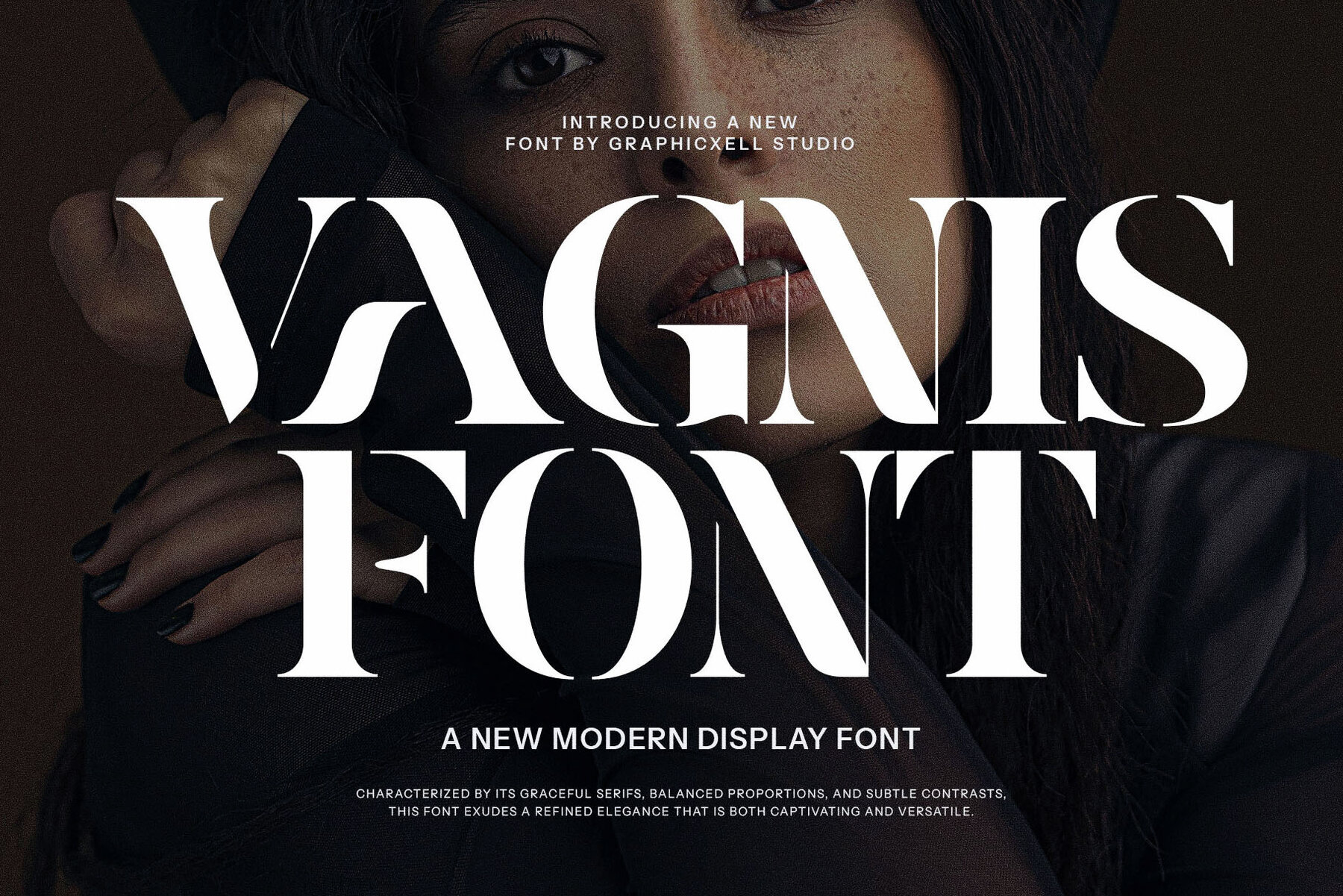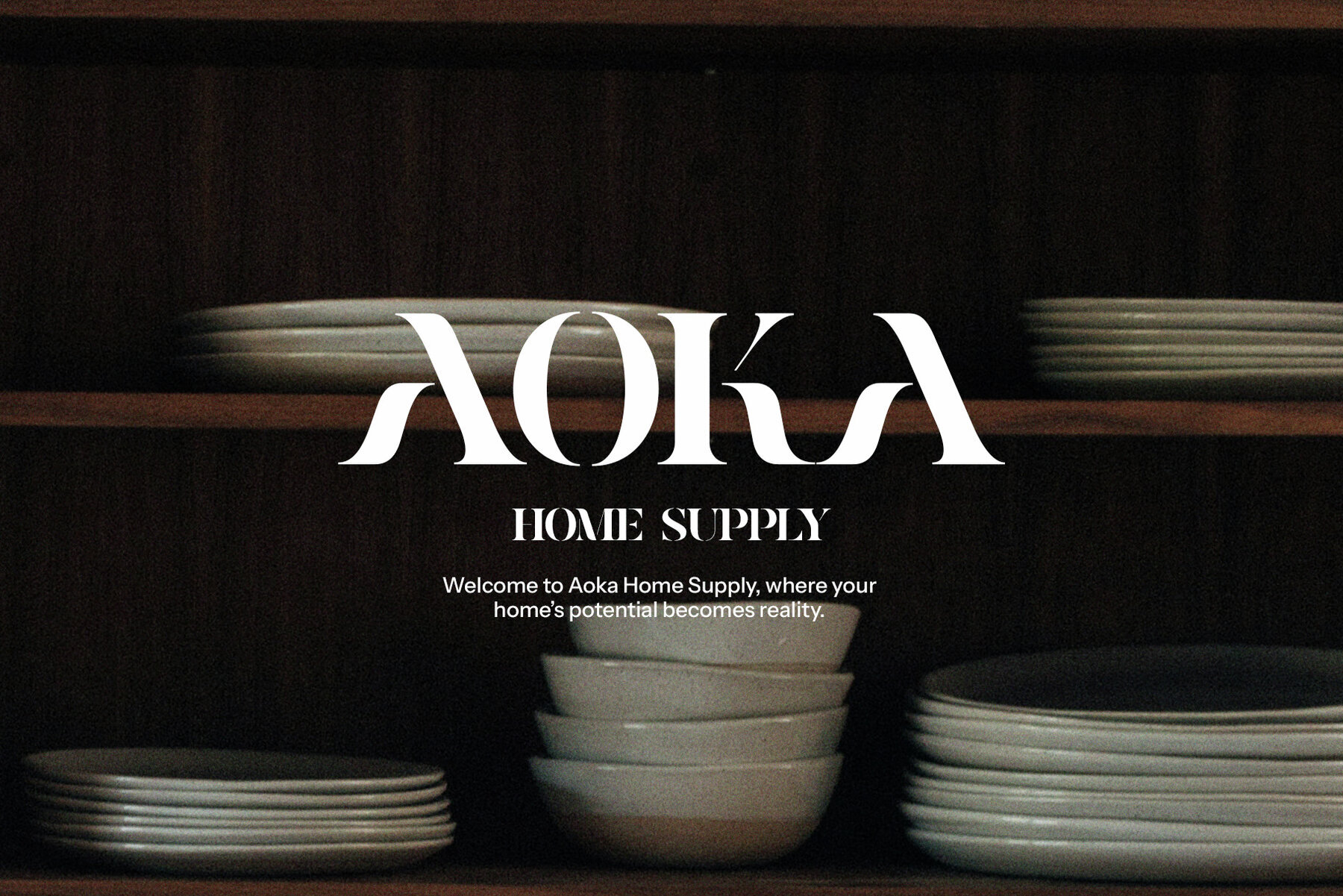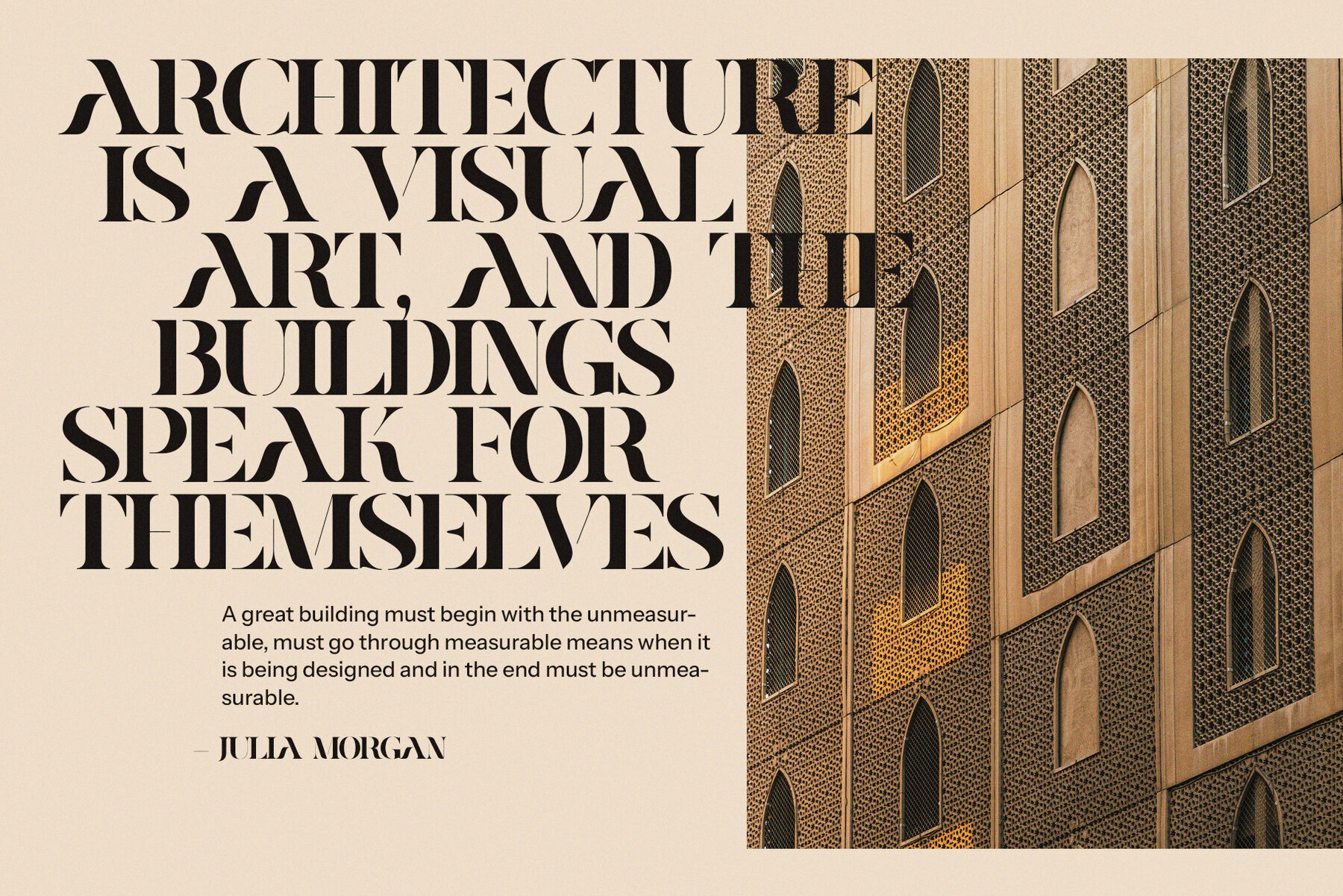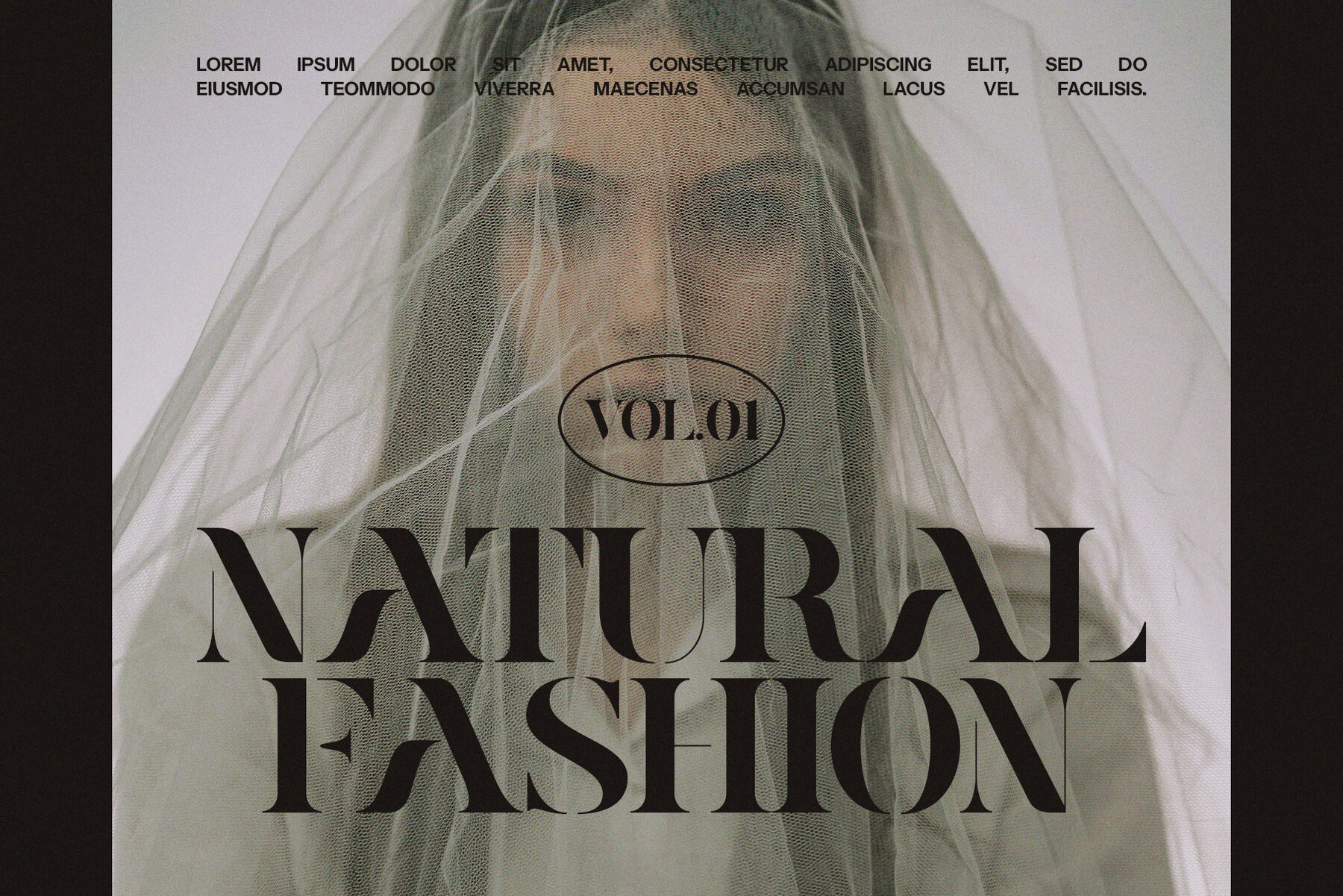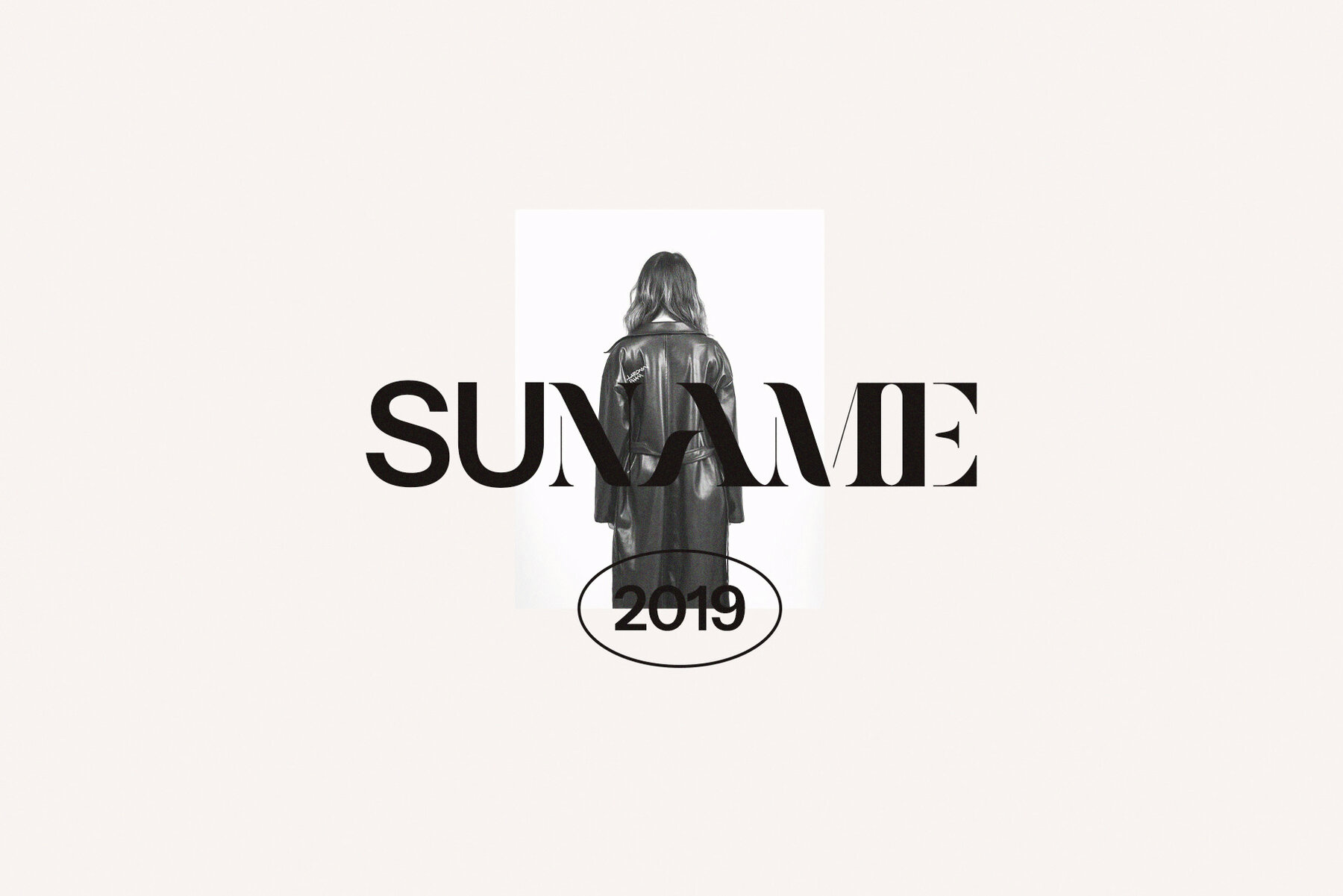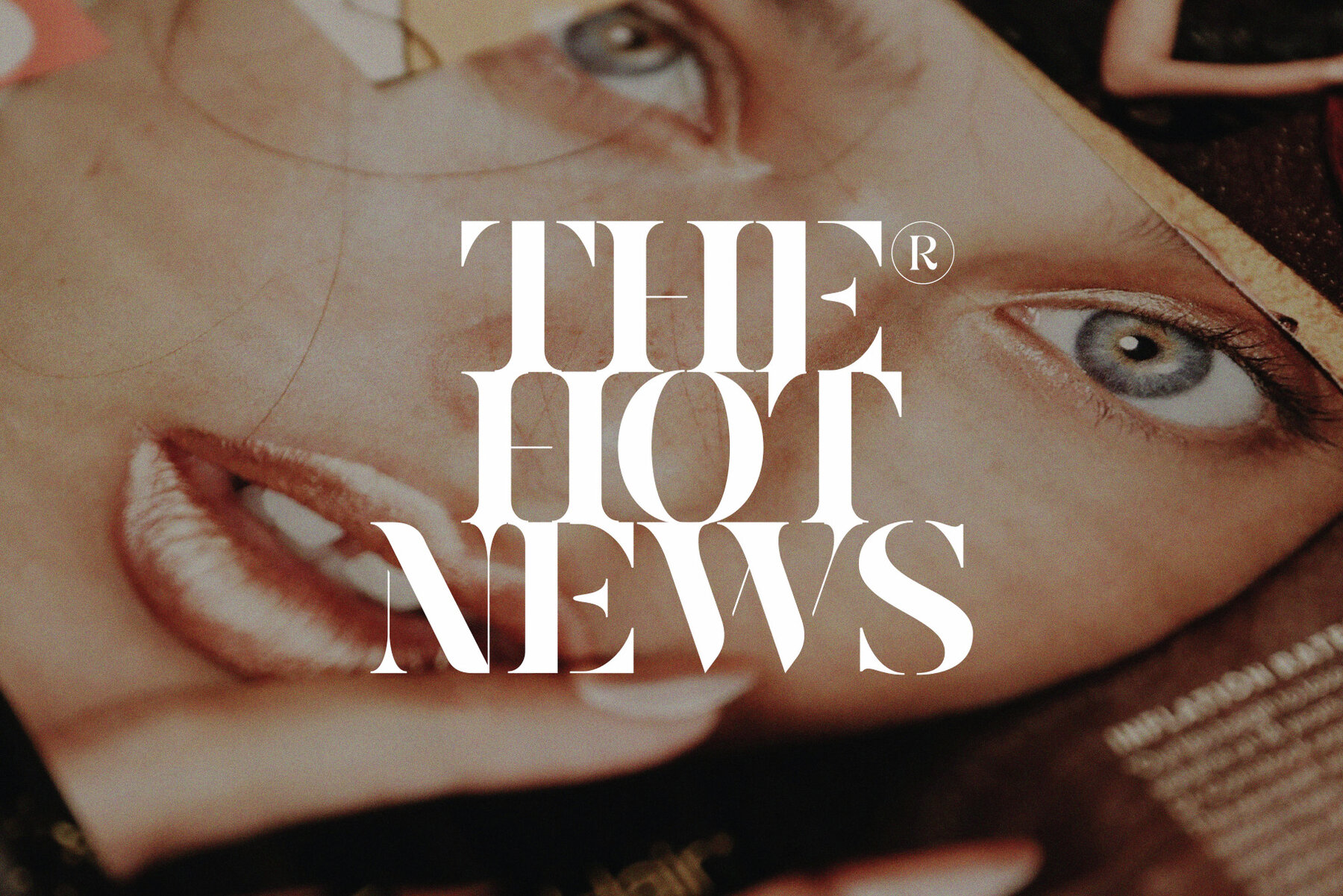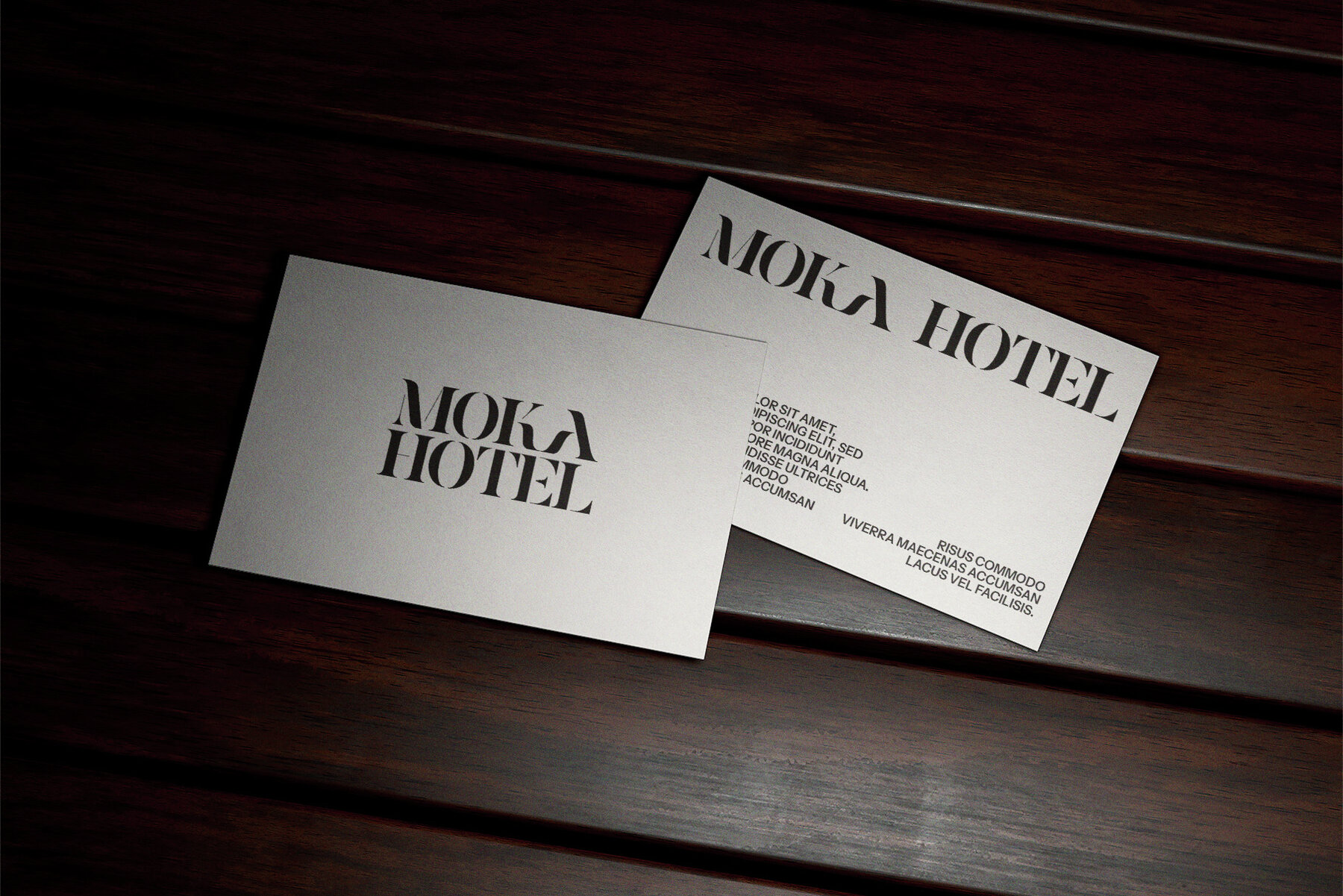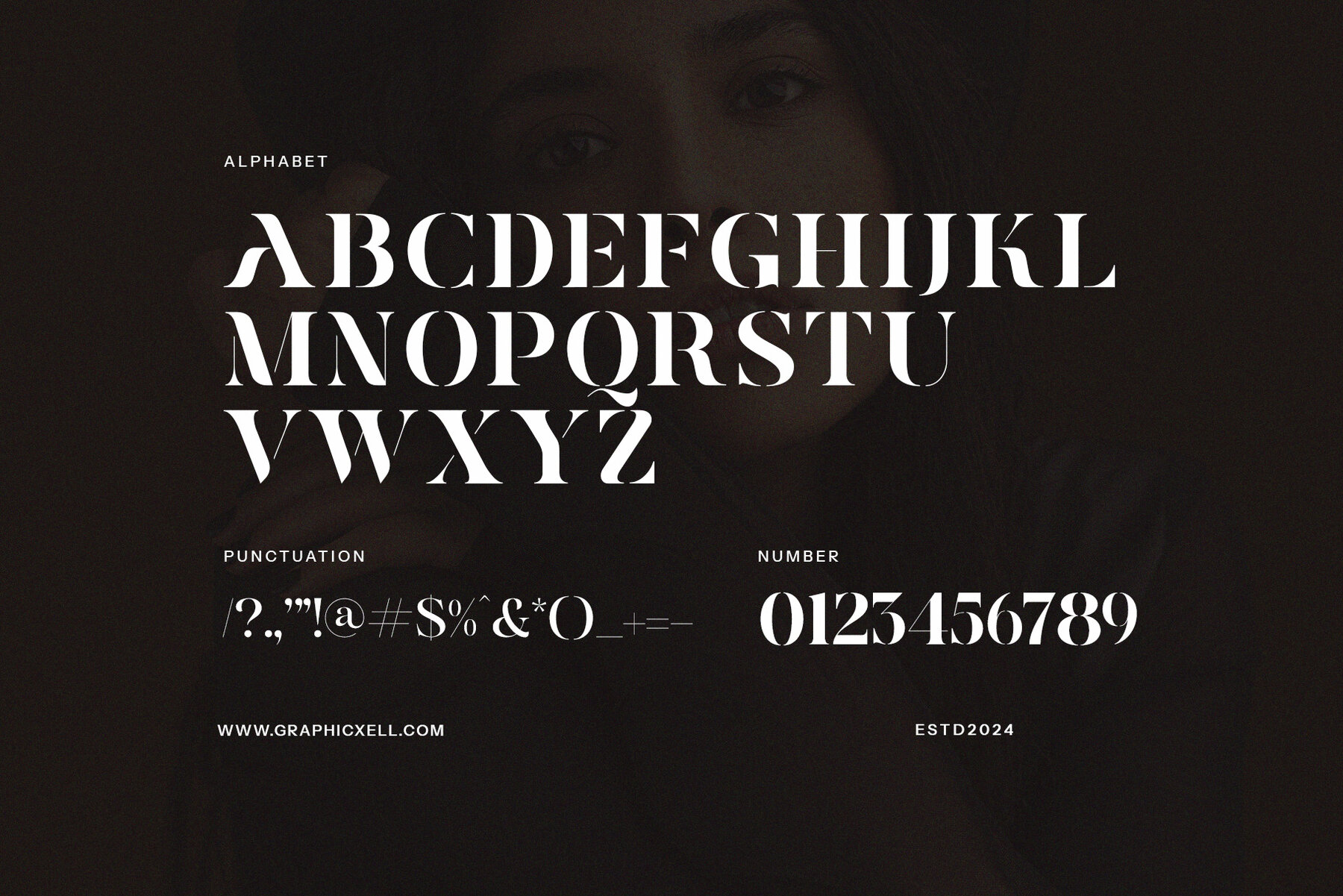
Vagnis Font
Vagnis Regular
Vagnis Modern Typeface brings a fashionable touch to your designs with its sophisticated and charming appearance. This modern serif typeface features delicate curves that add an elegant flair, making it ideal for beauty designs, elegant crafting, layout designs, and ad branding. The font's calligraphic influences contribute to a contemporary feel, enhanced by its classy ligatures. Whether used in design templates or various other projects, this typeface ensures a modern and aesthetically pleasing outcome.
The smooth strokes and thoughtful line thickness of Vagnis Modern Typeface play a significant role in creating a sophisticated look. Perfect for both personal and commercial projects, this font meets diverse design needs with style and precision. It’s an excellent choice to elevate your graphic design work, providing a high-quality, polished finish that you'll appreciate in every use.